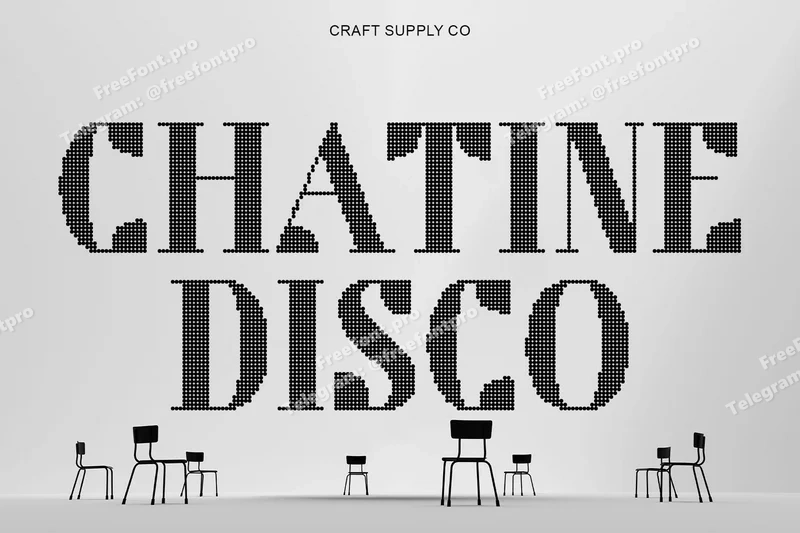
Chatine Disco
Chatine Disco: Where Elegance Dances with Energy
Modern Serif Font with Disco Detail This is a modern serif font that blends refined elegance with lively energy. Featuring graceful serif structures and shimmering disco details, this typeface radiates sophistication while maintaining a sense of vibrancy. Its polished letterforms and subtle sparkle make it a standout choice for luxury brands and high-end creative projects that aim to express both class and charisma.
Playful Contrast for Refined Expression Designed with beautiful play contrast between thick and thin strokes, this font brings depth and rhythm to your typography. The contrast enhances readability while adding a touch of artistic flair, making it ideal for elegant displays, editorial titles. Every curve and serif reflects meticulous craftsmanship, resulting in a look that’s both timeless and stylish.
Shimmering Disco Effect for Modern Glamour The disco-inspired detailing introduces a radiant touch, transforming this font into a font that sparkles with life. This glamorous effect infuses each letter with motion and light, creating a captivating sense of energy without losing its sophistication. Perfect for luxury campaigns, and product branding, it elevates your design with brilliance and allure.
Perfect for Elegant and Luxurious Designs Whether you’re crafting a fashion label, beauty brand, or exclusive editorial layout, delivers an exquisite balance of elegance and excitement. Its modern serif form paired with dazzling disco energy creates a unique visual identity refined, confident, and irresistibly eye-catching.